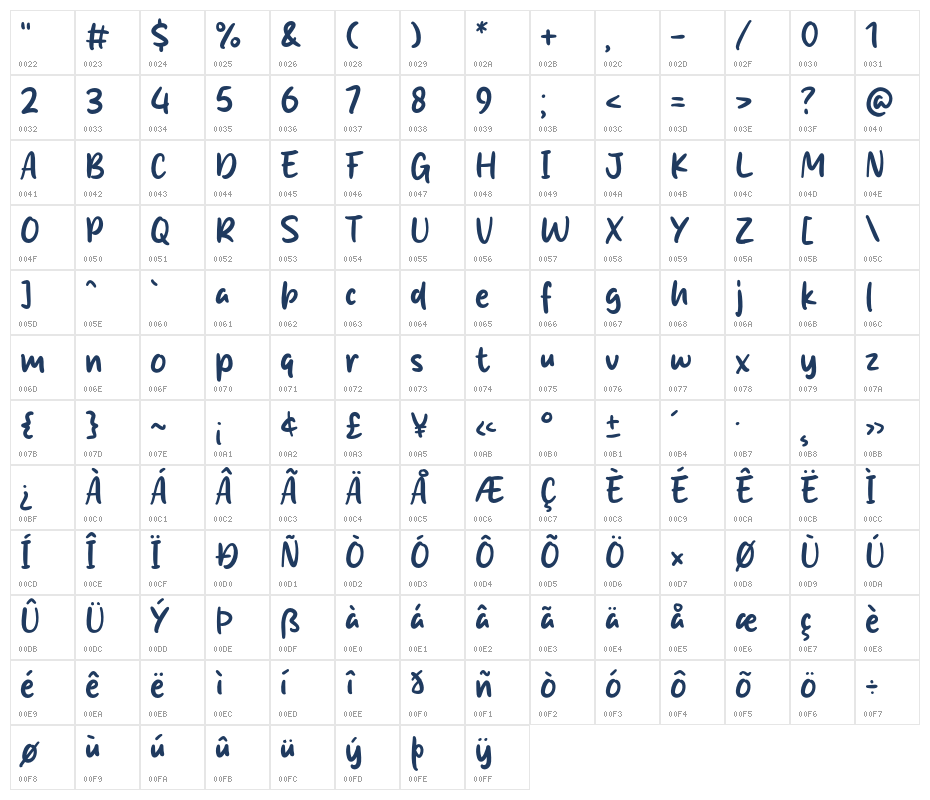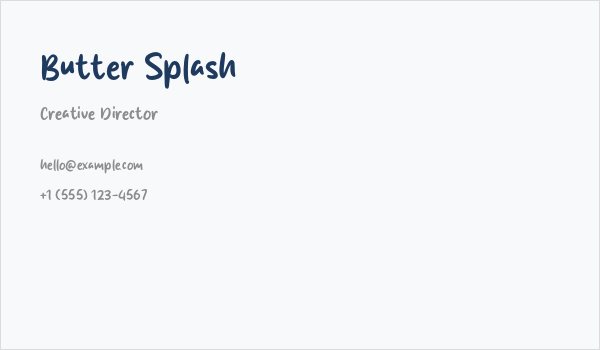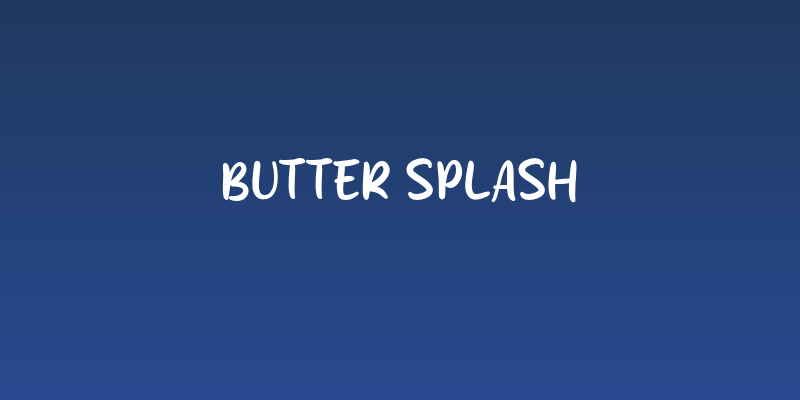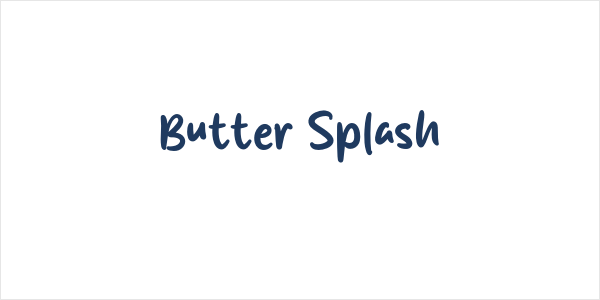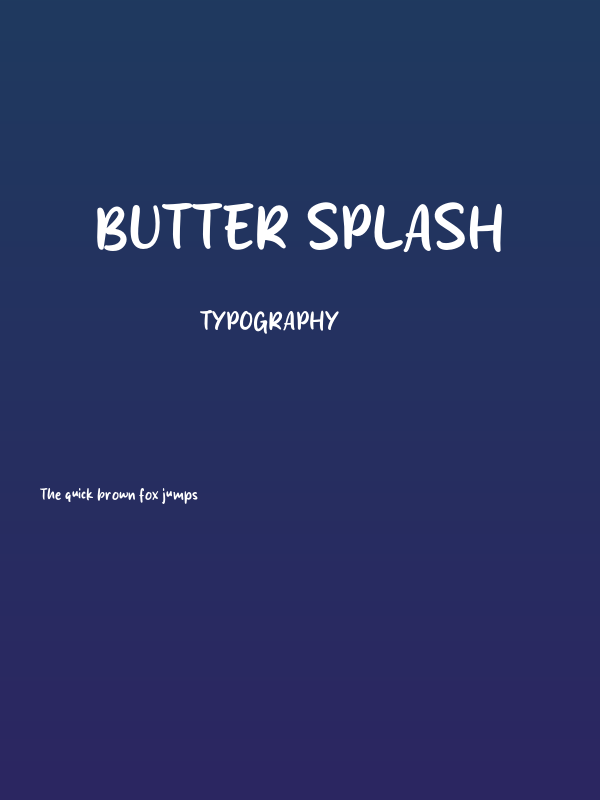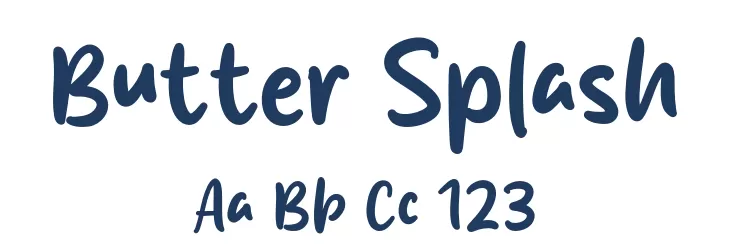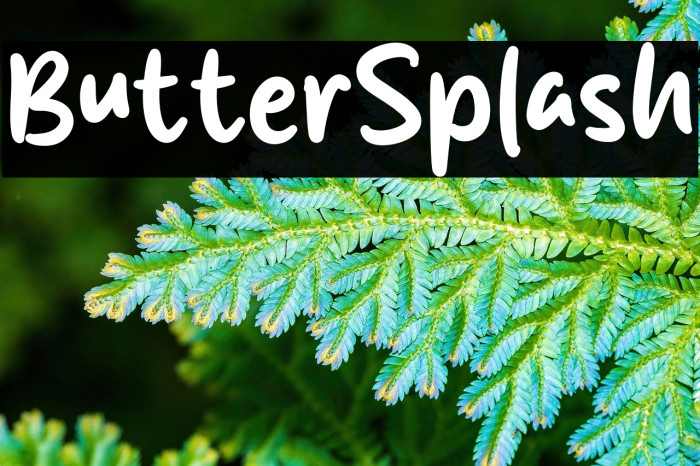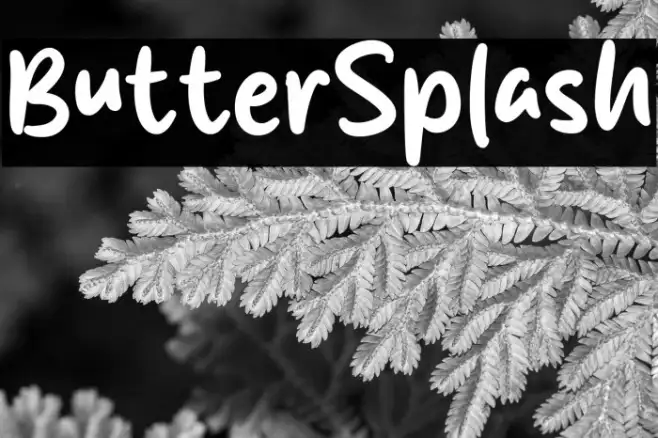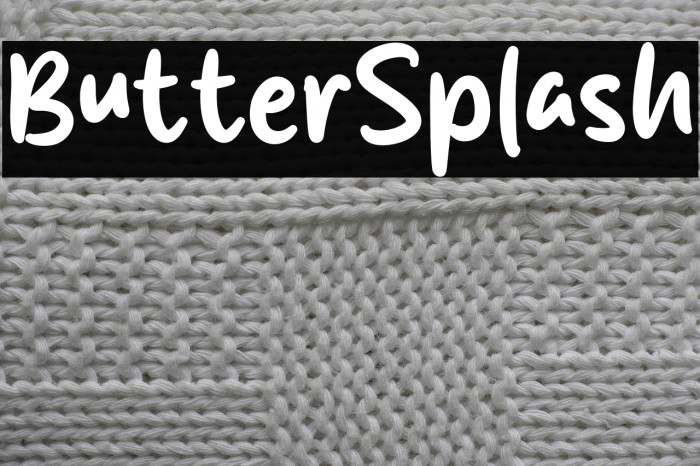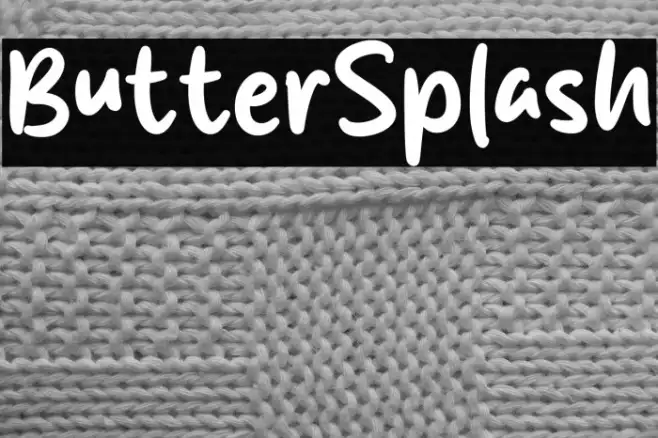
Butter Splash Font
Butter Splash Description
A casual, handwritten script font with a playful and friendly appearance, featuring rounded edges and a slightly irregular stroke width.
Butter Splash
| Overall Style | Casual, Friendly, Handwritten |
| Use Case | Headlines, Body text, Logos, Invitations |